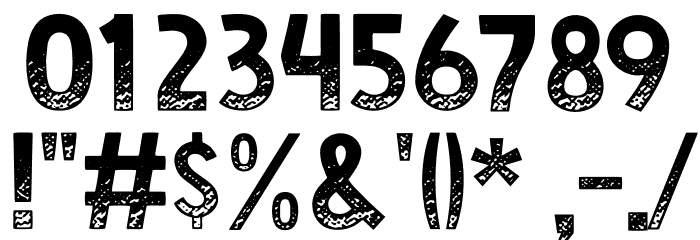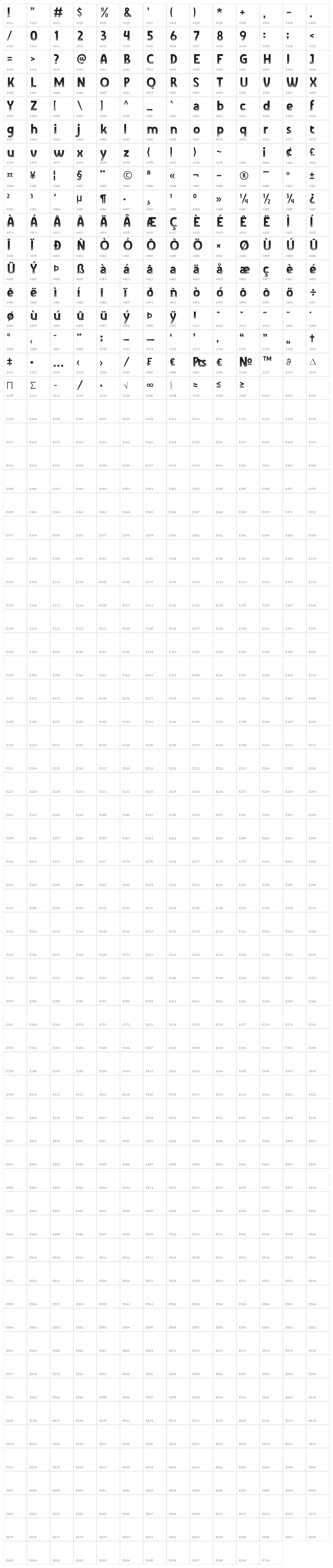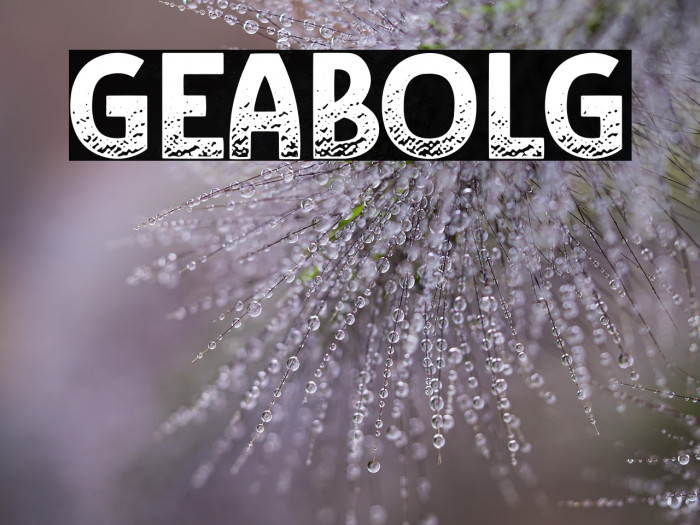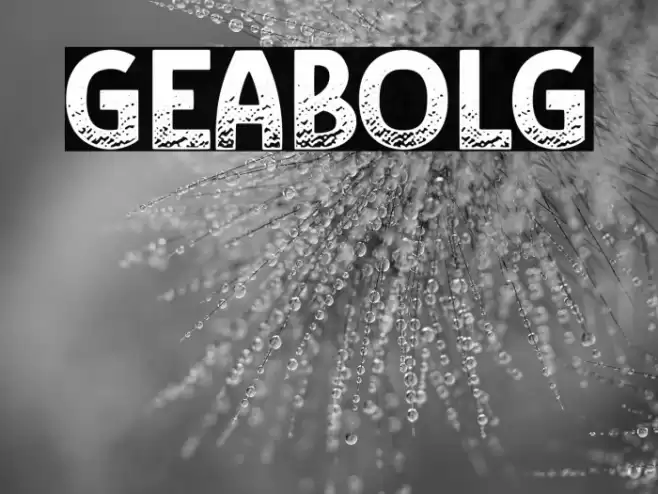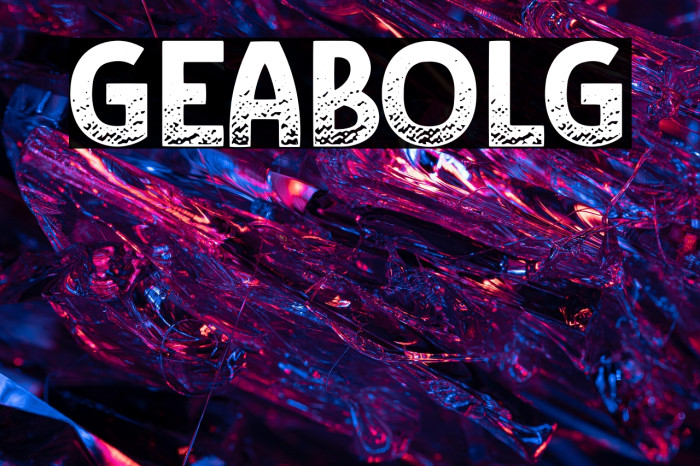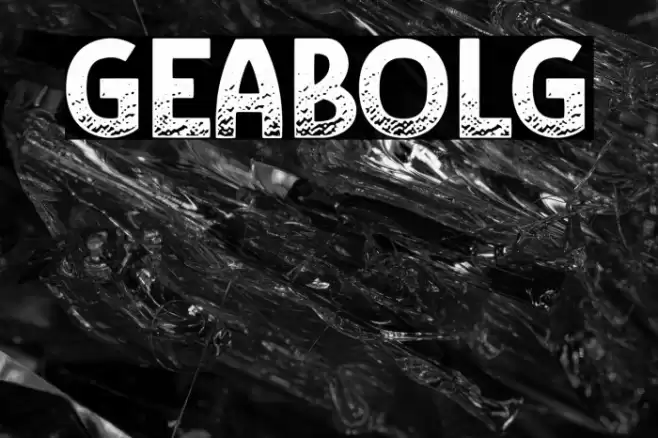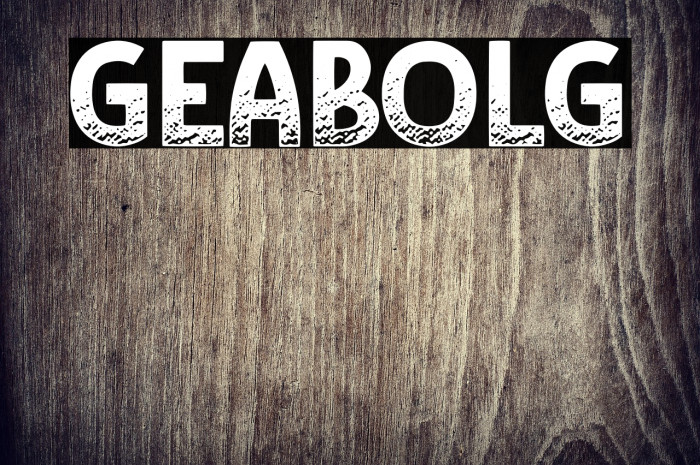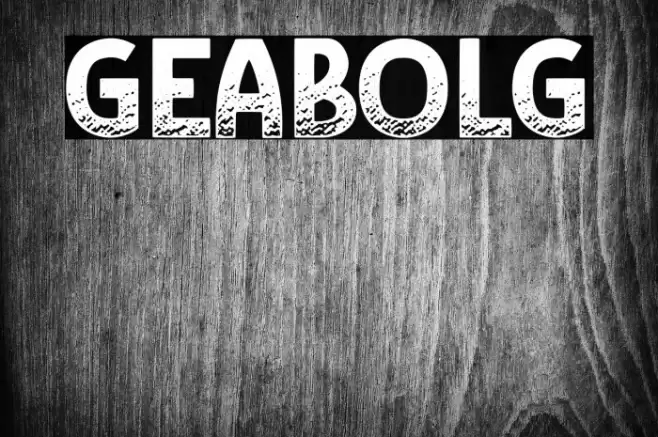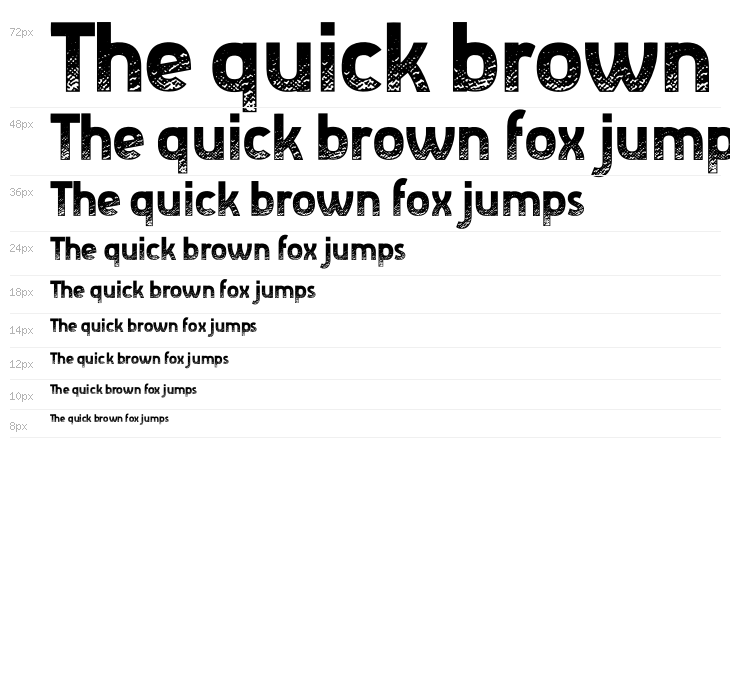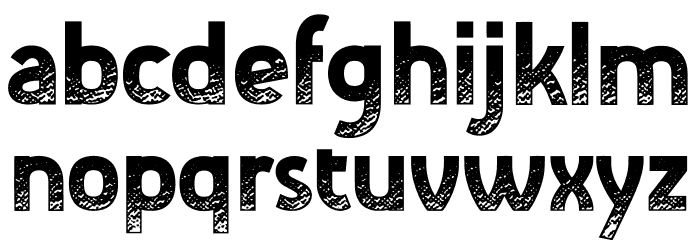
GEABOLG Font
GEABOLG Description
This font features a bold and playful design with a textured, distressed appearance that gives it a unique, handcrafted feel. The characters are uniformly bold, with a consistent weight throughout, and the texture adds a vintage, worn look that makes it stand out. The uppercase and lowercase letters maintain a consistent style, with rounded edges and a slightly condensed form. The numbers and special characters follow the same design principles, ensuring a cohesive look across all glyphs. This font is ideal for projects that require a touch of personality and a handcrafted aesthetic.
| Proposed Projects | Ideal for branding, posters, packaging, and any design project that requires a bold, vintage look. |